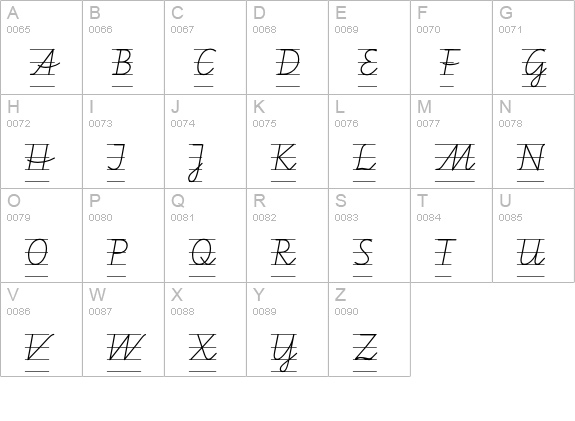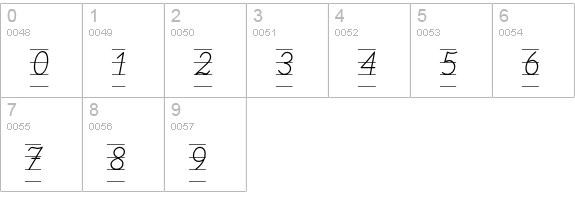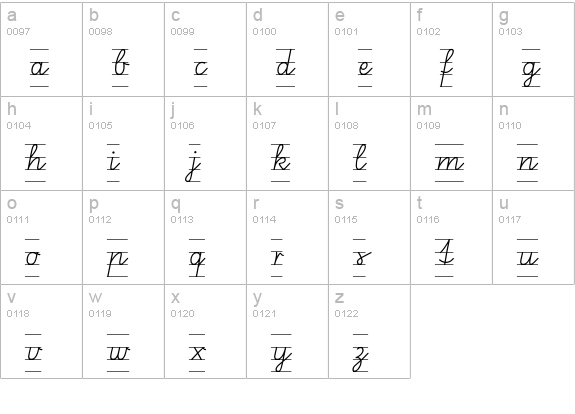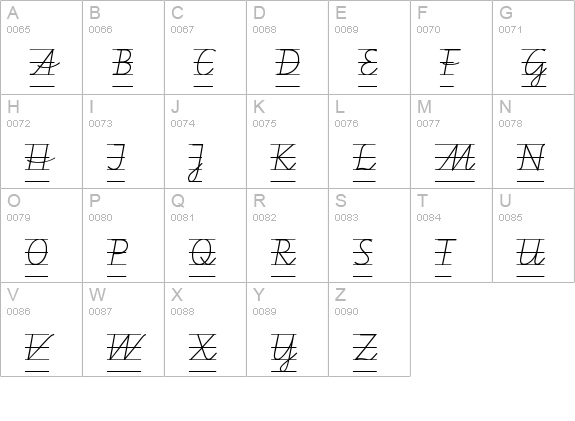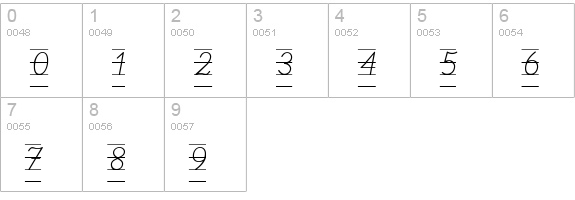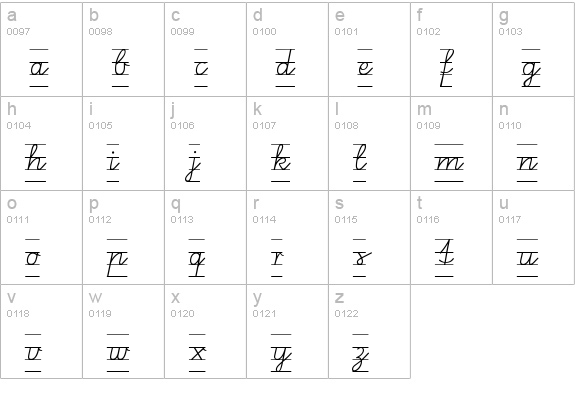
SchulschriftA-L4 Font Details
SchulschriftA-L4 is a delightful font that perfectly captures the essence of handwritten elegance. With its smooth curves and flowing lines, this font is sure to add a touch of sophistication to any project. Whether you're designing invitations, creating logos, or crafting beautiful typography for your website, SchulschriftA-L4 is the perfect choice. What sets SchulschriftA-L4 apart from other fonts is its versatility. It seamlessly blends both traditional and modern elements, making it suitable for a wide range of design styles. Its clean and crisp appearance ensures readability, while its unique character brings a sense of personality to your work. One of the best features of SchulschriftA-L4 is that it is free. Yes, you read that right! This amazing font is freely available to download at FontsMarket.com. You can now enjoy the beauty and elegance of SchulschriftA-L4 without worrying about any additional costs. It's a fantastic opportunity to enhance your design projects without breaking the bank. Not only is SchulschriftA-L4 visually appealing, but it is also incredibly easy to use. Its well-defined letterforms ensure legibility even at small sizes, making it suitable for both print and digital applications. Whether you're working on a poster, flyer, or website, SchulschriftA-L4 will make your text stand out with its exquisite charm. So why wait? Download SchulschriftA-L4 today from FontsMarket.com and unlock a world of creative possibilities. Whether you're a professional designer or a DIY enthusiast, this font is sure to inspire and elevate your work. With its free availability and exceptional quality, SchulschriftA-L4 is a must-have addition to your font collection. Don't miss out on this incredible opportunity to enhance your designs with a touch of elegance and style.